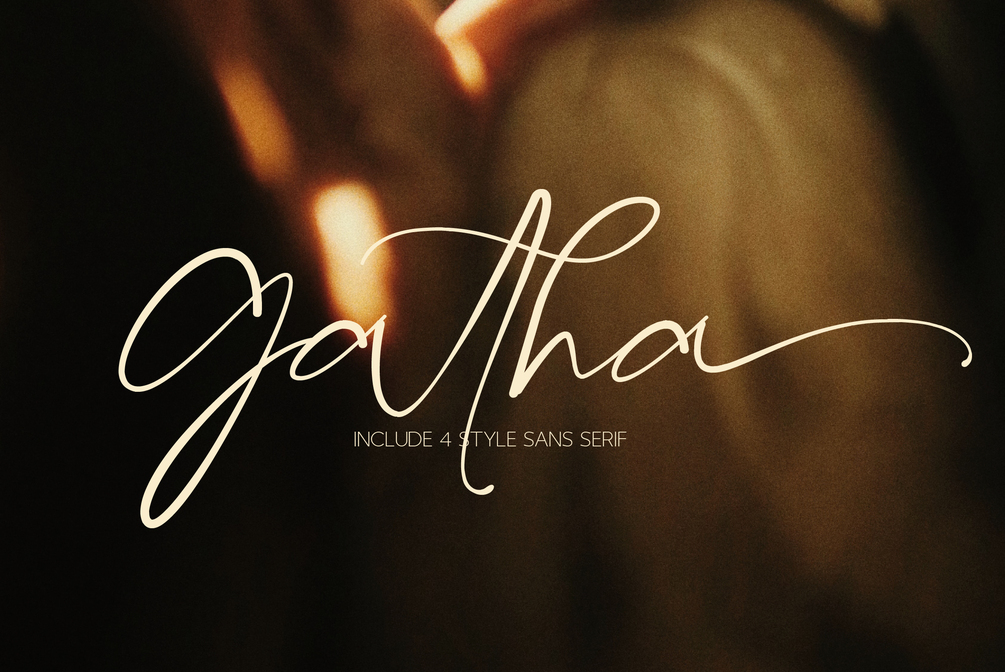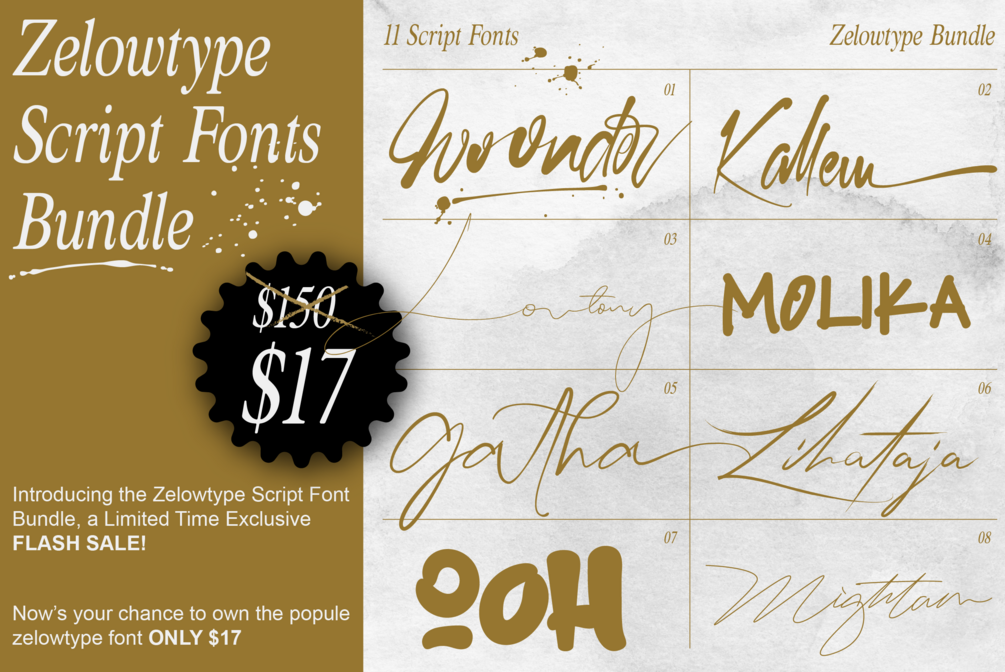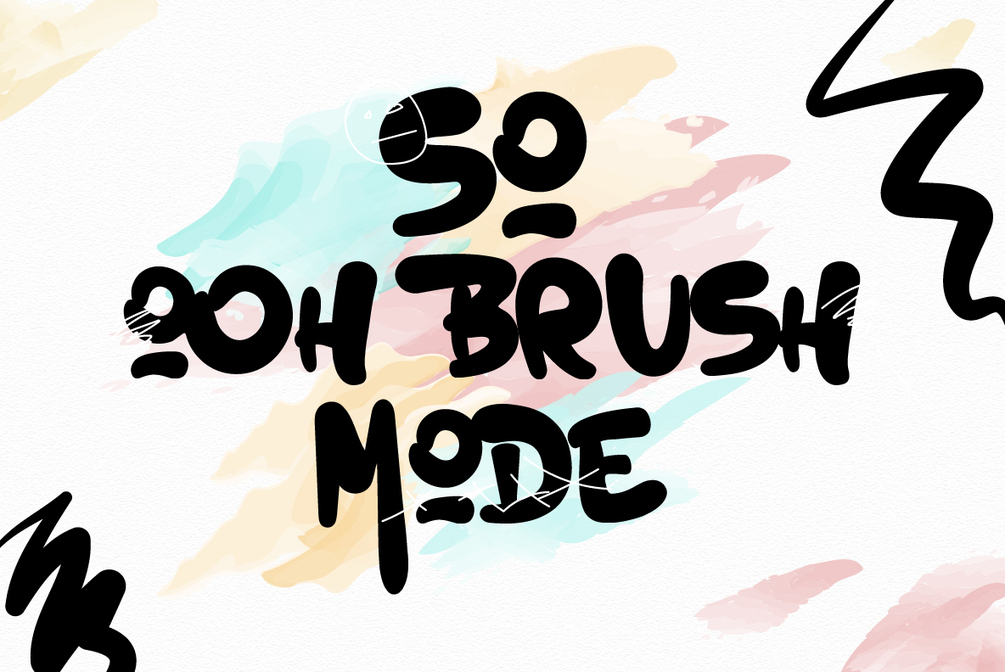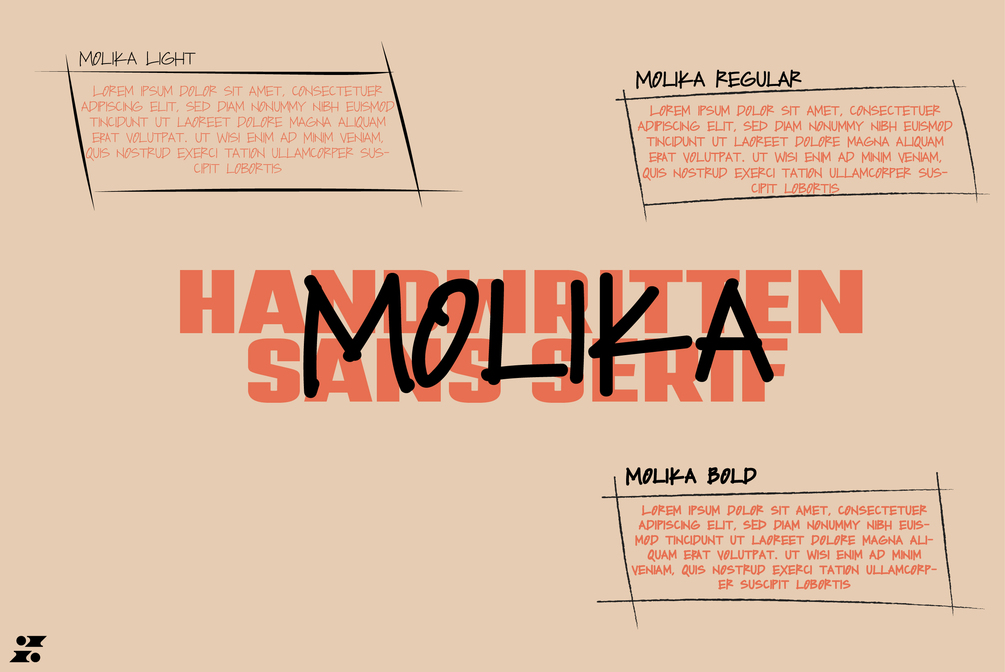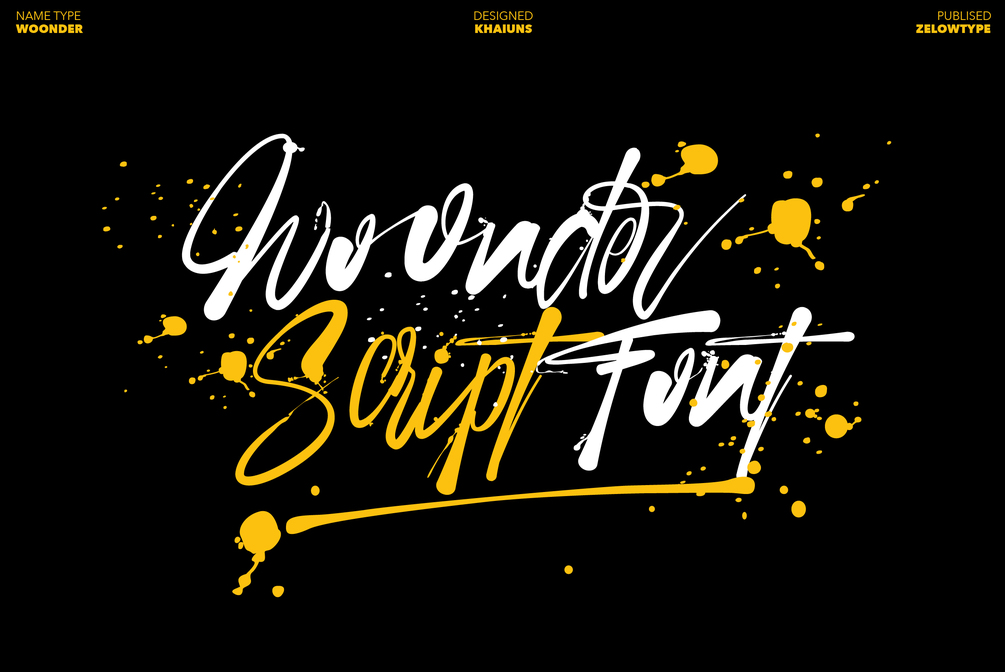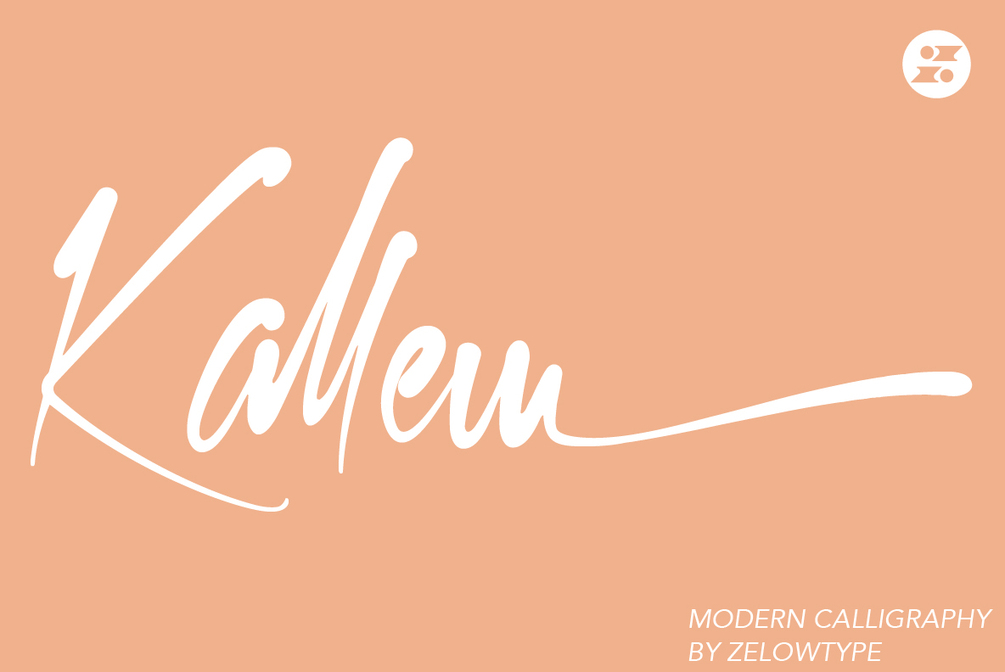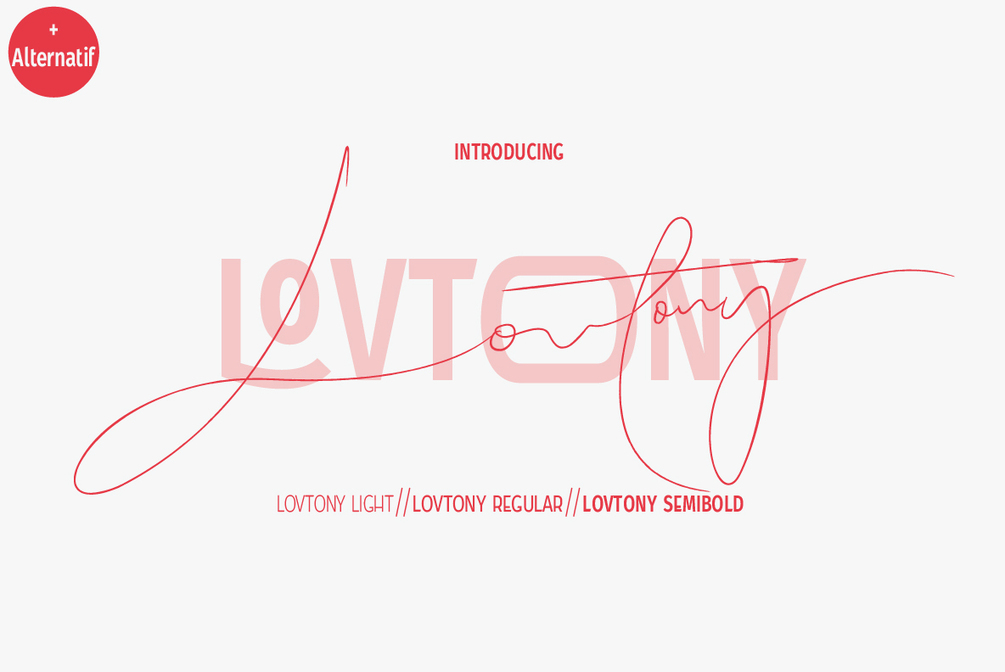
Zelowtype Script Font Bundles
π¦ What's Included? 11 unique, high-quality script fonts:
- Woonder β Bold and expressive brush lettering
- Kallem β Smooth and elegant modern script
- Lovtony β Thin and flowing signature nuances
- Molika β Bold with unique character
- Gatha β Graceful and feminine handwriting
- lihataja β Minimalist and textured brush lettering
- Loffers β Fun and playful brush script
- Kloftel β Original and powerful lettering nuances
- Mightam β Luxurious modern italic
- Ohh β Strong and rounded playful typeface
- Sattin β Classic and stylish script
Each font is designed for flexibility and beauty, making it ideal for everything from elegant wedding invitations to bold product branding.